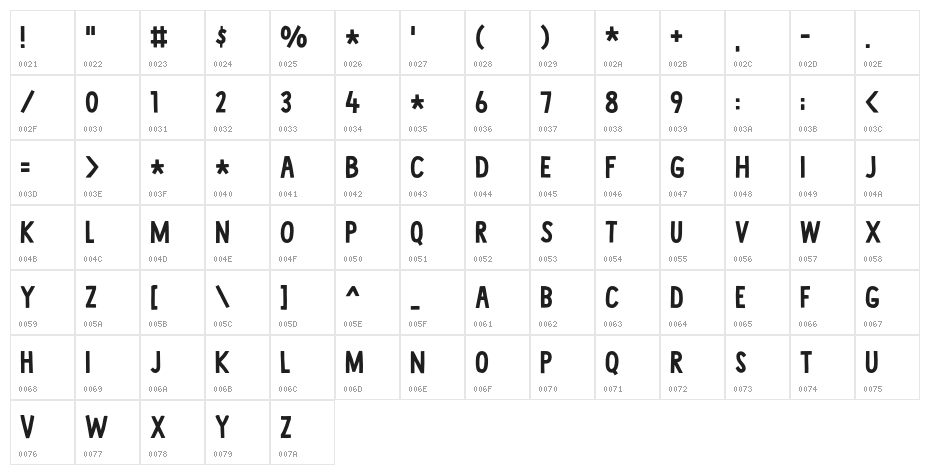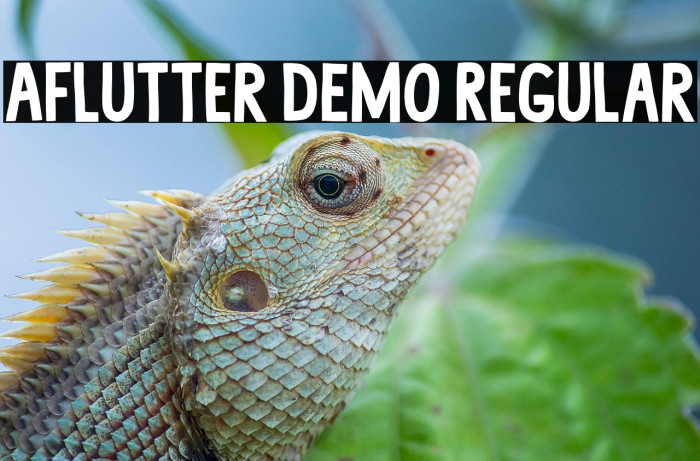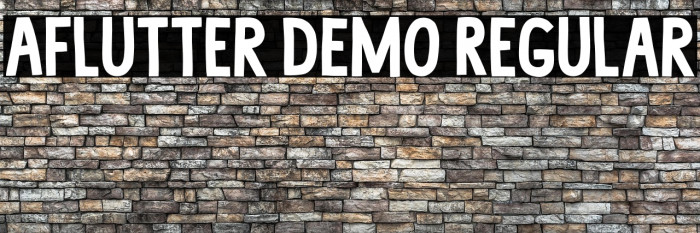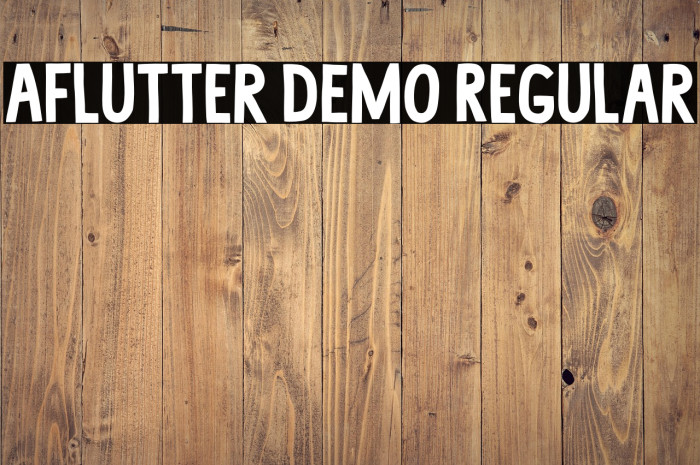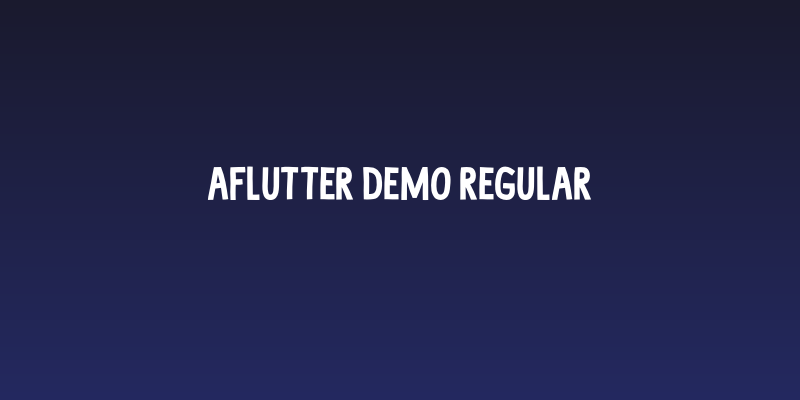
Aflutter DEMO Regular Font
Aflutter DEMO Regular Description
This font features a bold and playful style with a slightly irregular and hand-drawn appearance. The characters are thick and rounded, giving them a friendly and approachable feel. The uppercase and lowercase letters maintain a consistent weight, while the numbers and special characters blend seamlessly with the overall design. The font's unique charm is enhanced by its slightly uneven lines, which add a touch of whimsy and personality.
| Overall Style | Playful, Whimsical, Hand-drawn |
| Proposed Projects | Ideal for children's books, playful branding, casual invitations, and creative posters. |